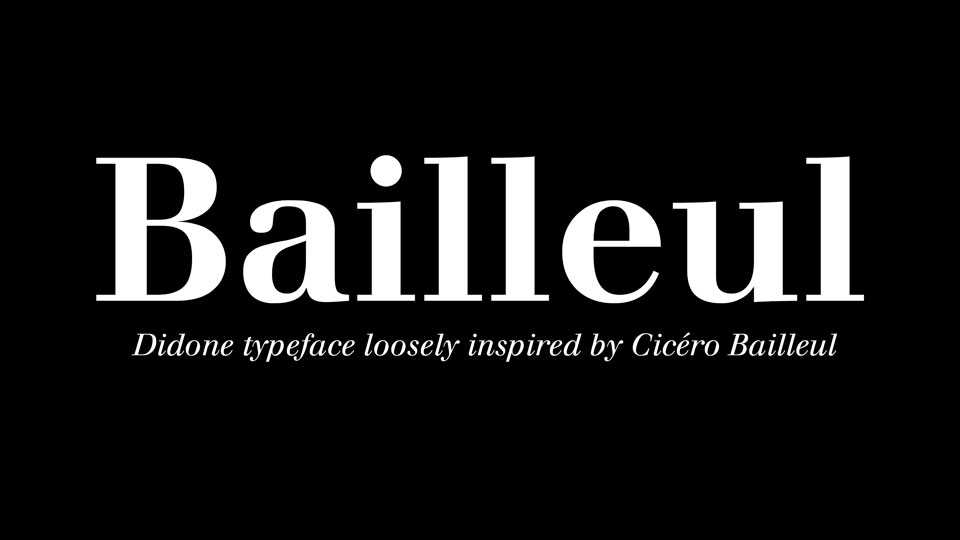
Download Bailleul typeface, a didone serif font family in four styles inspired by the Cicéro Bailleul type and based on Justus Roman.
Designer: yomli